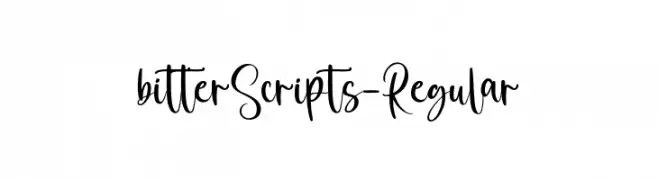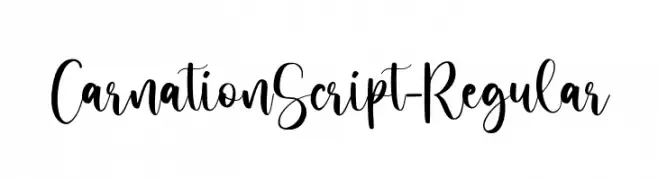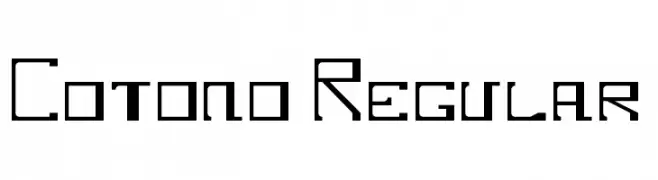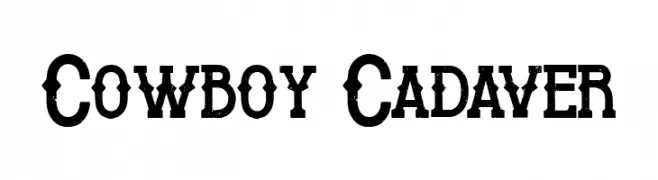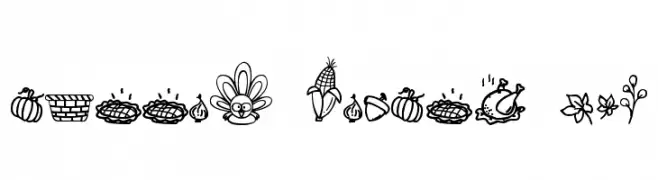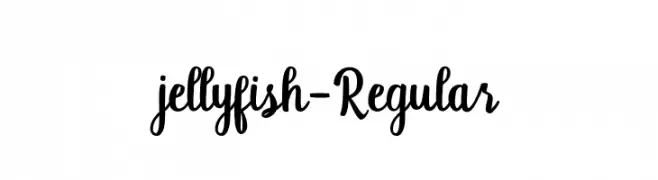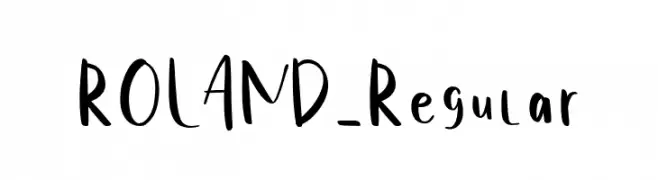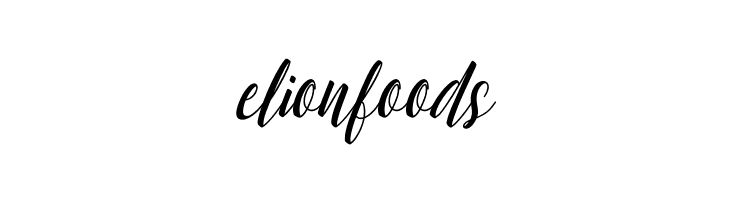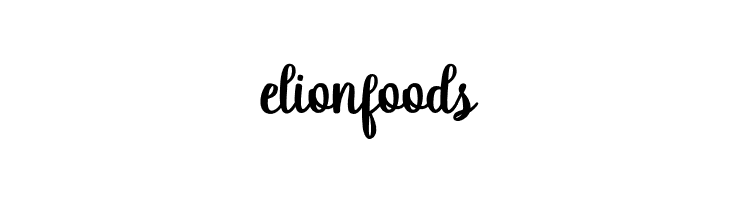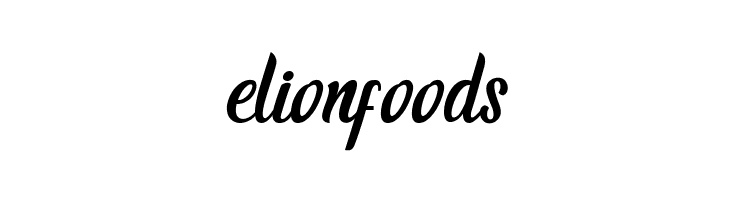
An elegant script font with flowing, cursive letterforms and ornate flourishes.
A bold, brush-style script font with expressive, flowing strokes.
A relaxed and elegant script font with flowing, cursive letterforms.
A playful and flowing script font with smooth, rounded edges.
A sophisticated script font with flowing, cursive letterforms.
A whimsical collection of autumn-themed dingbats featuring turkeys, pumpkins, and other harvest symbols.
A playful and elegant script font with a handwritten appearance.
A sophisticated and elegant script font with flowing, interconnected letters and high contrast.
A playful, handwritten font with smooth curves and a casual style.
A rugged, distressed slab serif font with a vintage, Wild West feel.